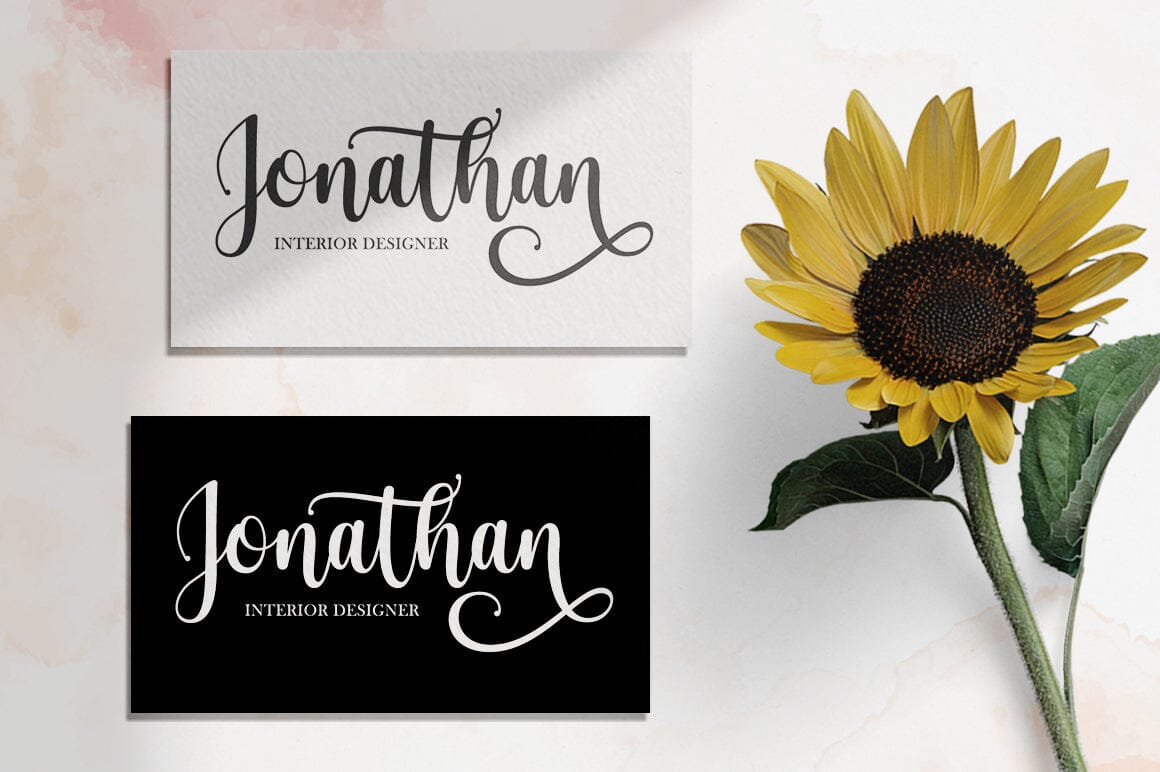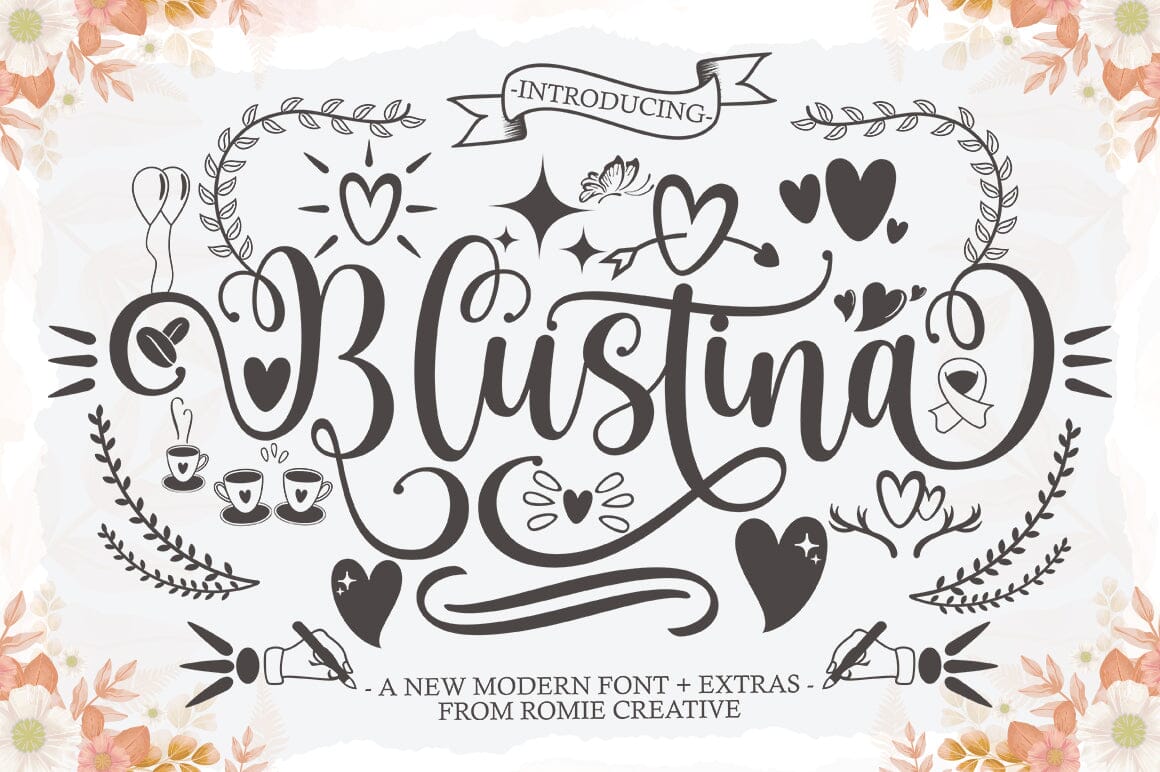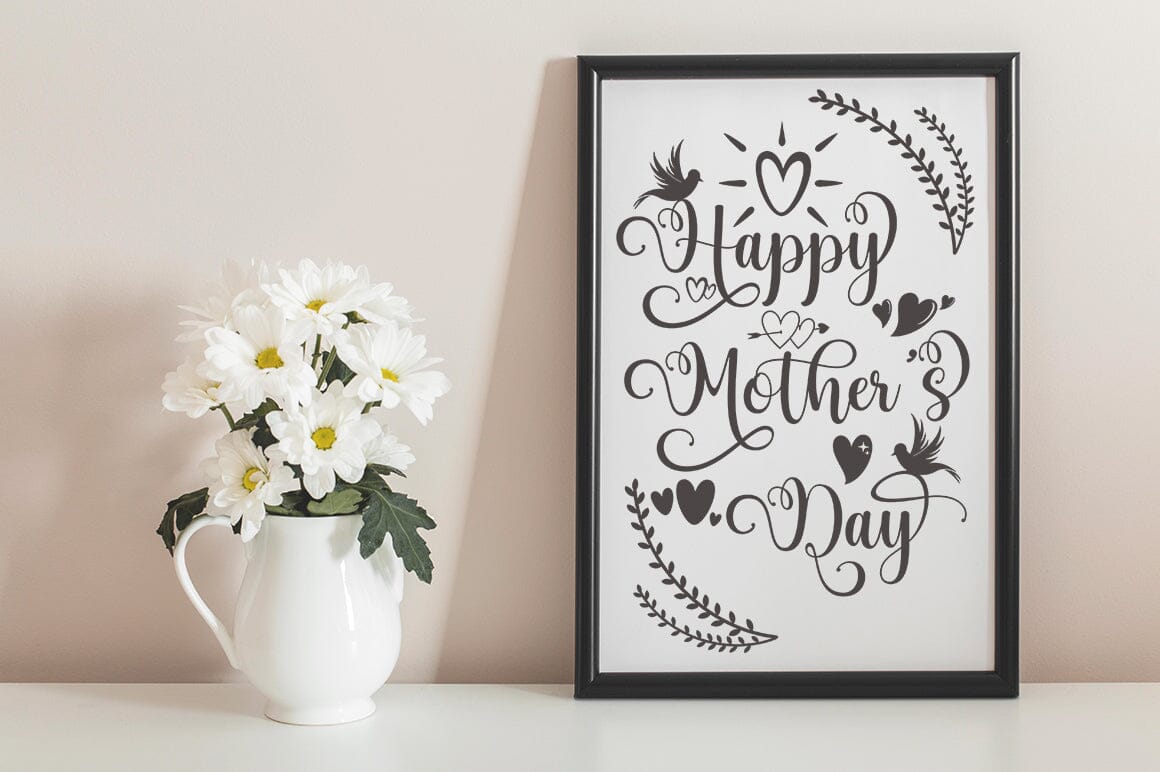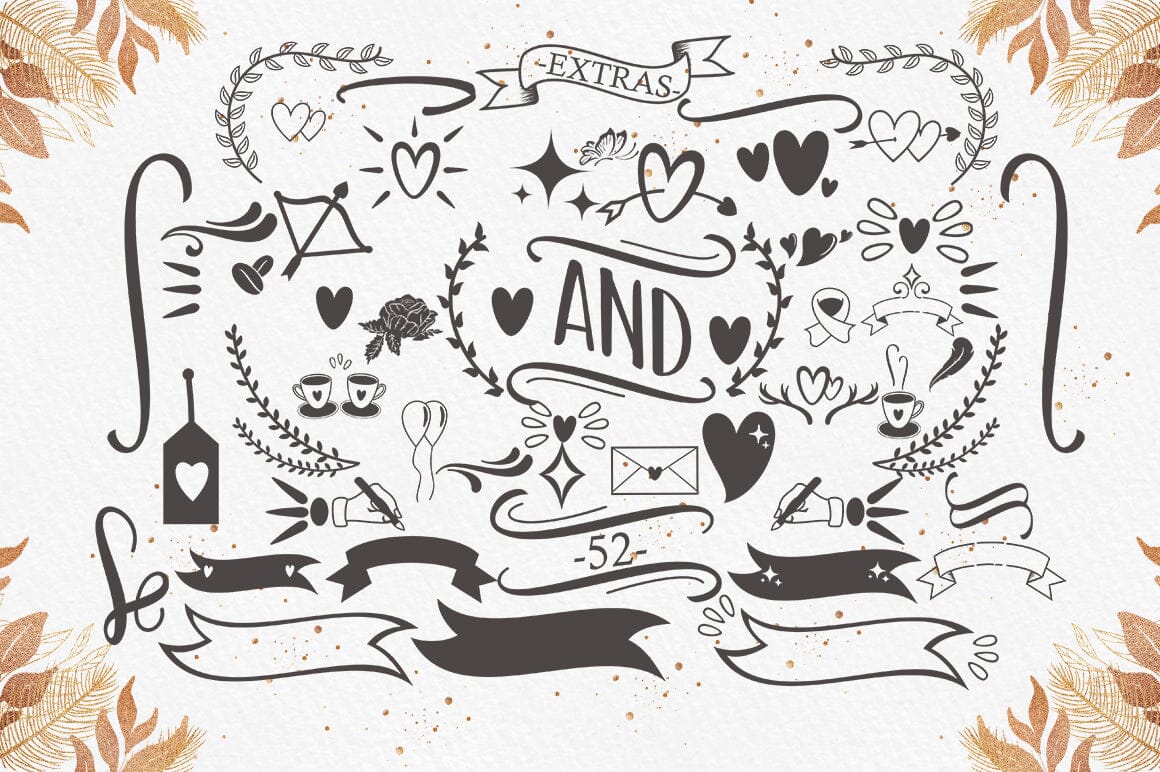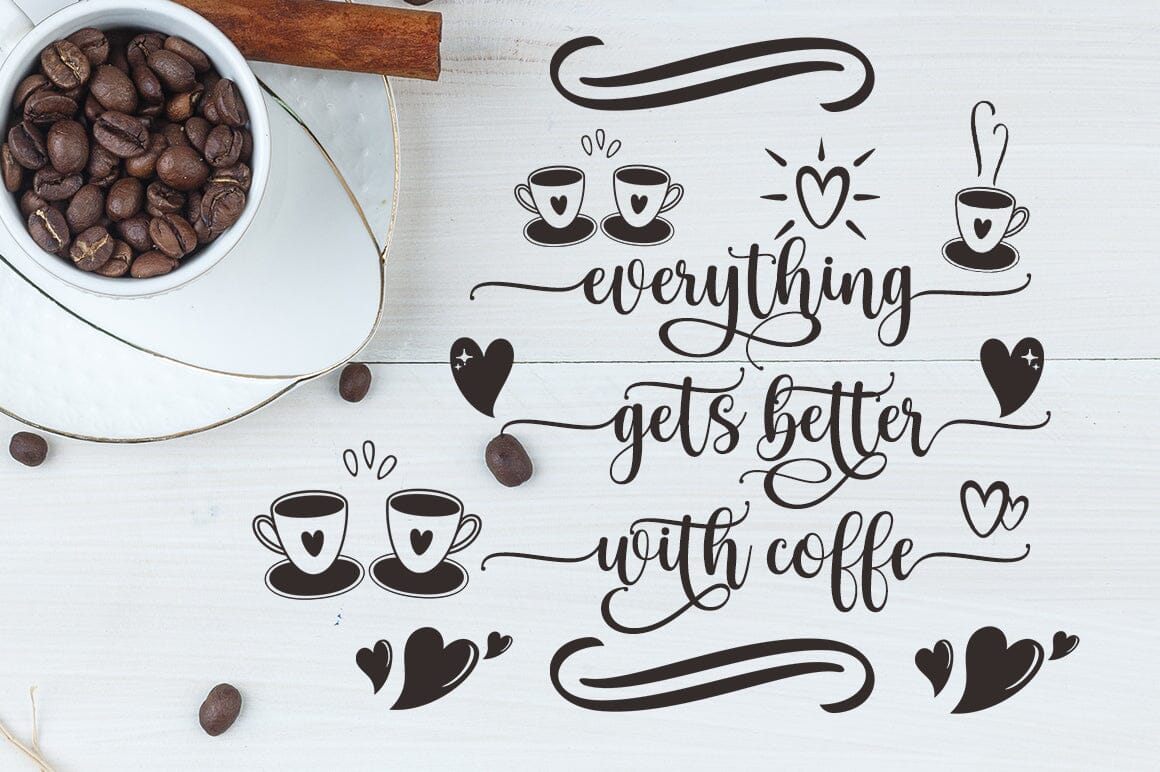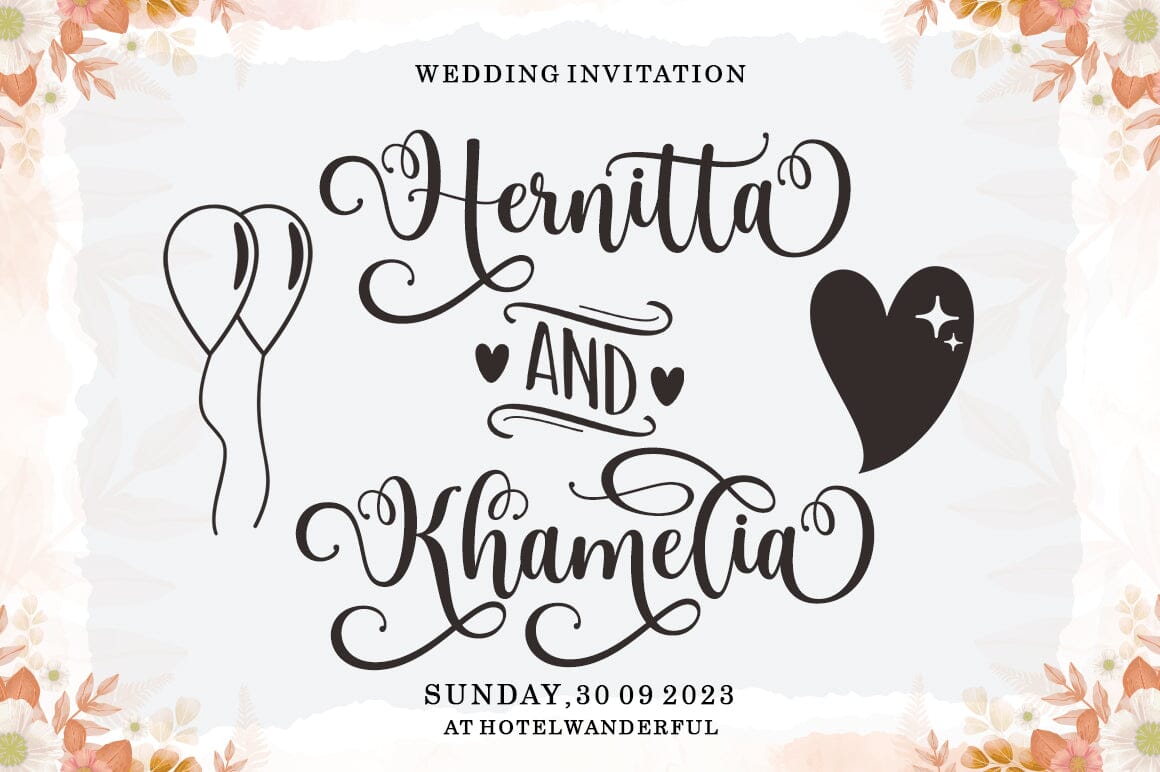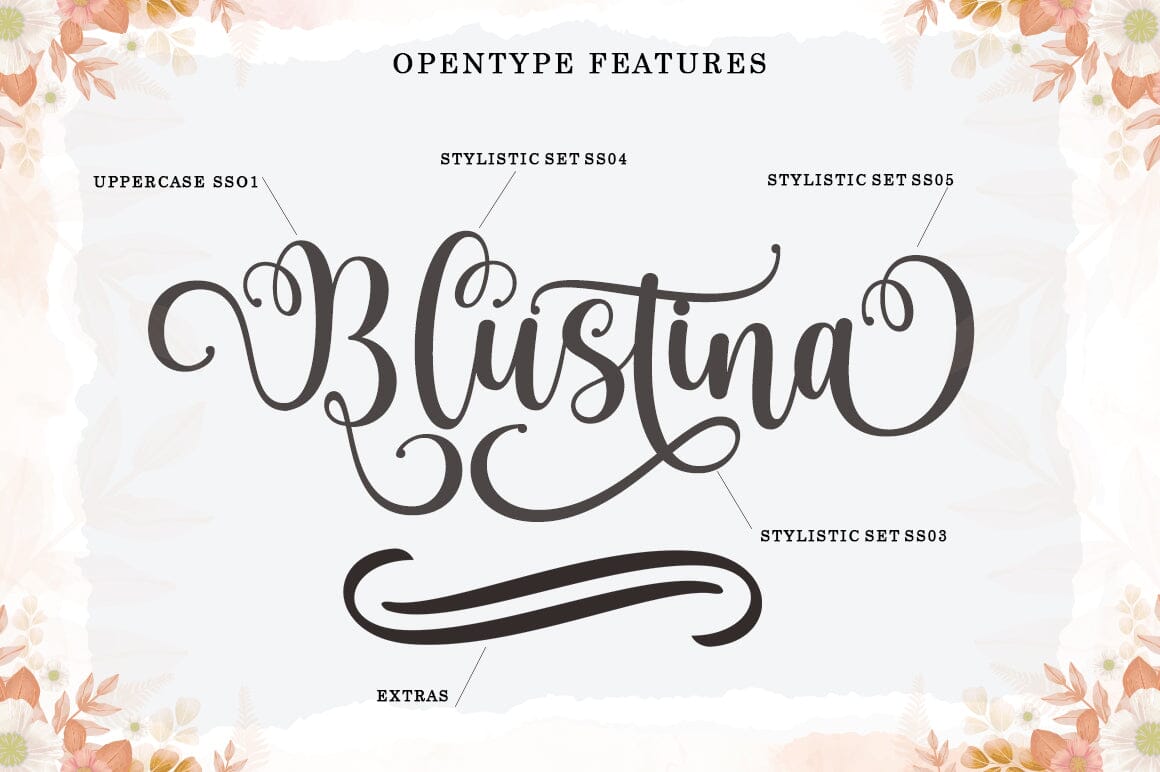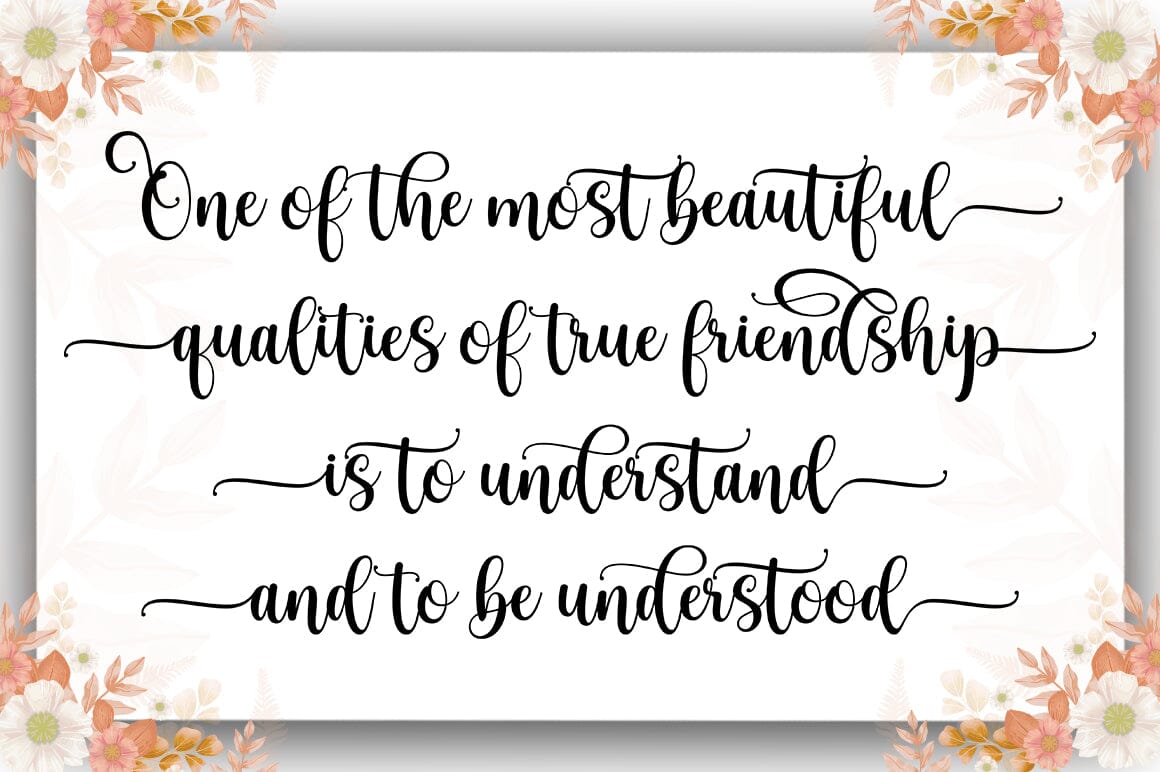
Blustina Script and Extras
About Blustina Script and Extras
Blustina Script and Extras is a beautiful and modern font. Looks amazing on wedding invitations, thank you cards, mother’s day cards, quotes, greeting cards, logos, business cards and other designs. This font is PUA encoded which means you can access all the glyphs and sweeps easily! This font includes OpenType features with alternative styles, ligatures, and multiple language support. To enable the OpenType Stylistic alternative, you need a program that supports OpenType features such as Adobe Illustrator CS, Adobe Indesign & CorelDraw X6-X7, Microsoft Word 2010 or later. There are additional ways to alternate/swash, using the Character Map (Windows), Nexus Font (Windows), Font Book (Mac) or a software program such as PopChar (for Windows and Mac). How to access all alternative characters, using Windows Character Map with Photoshop: https://www.youtube.com/watch?v=Go9vacoYmBw How to access all alternative characters using Adobe Illustrator: http://youtu.be/iptSFA7feQ0